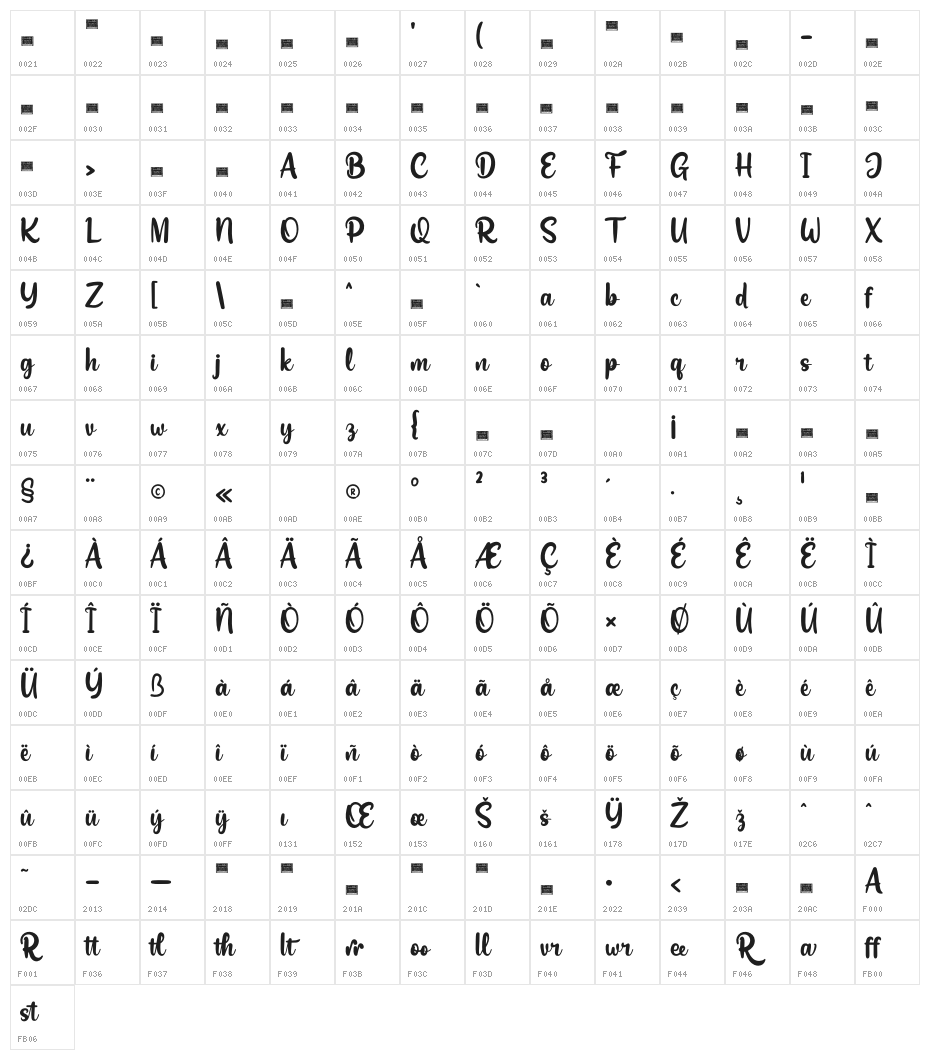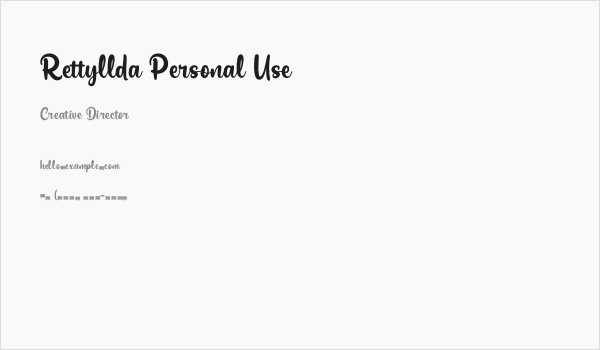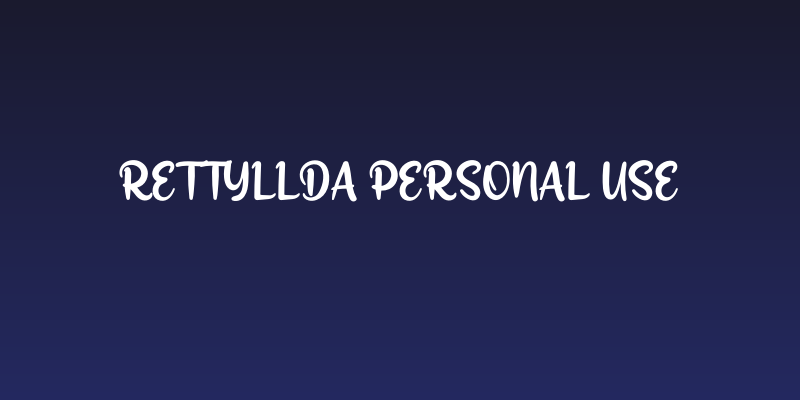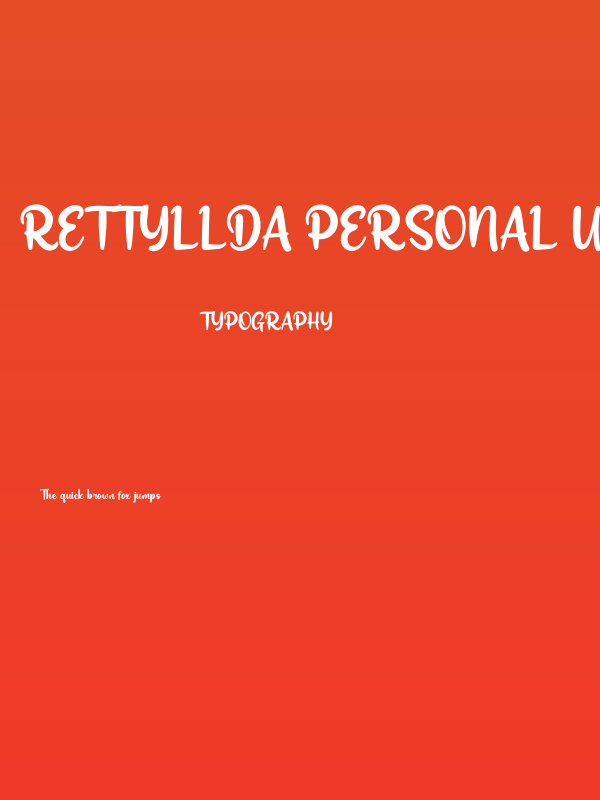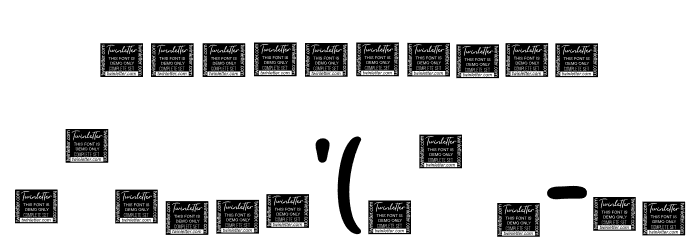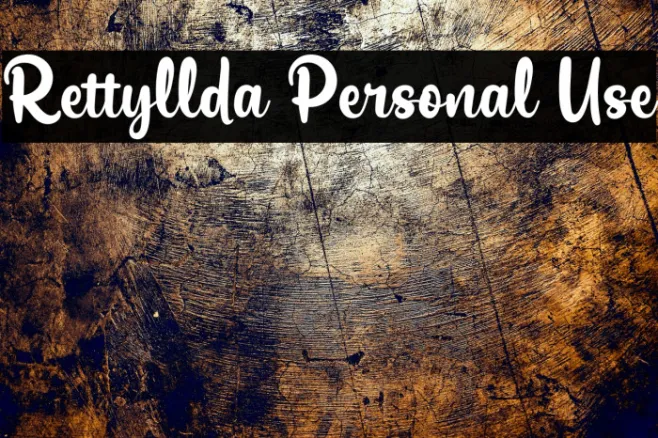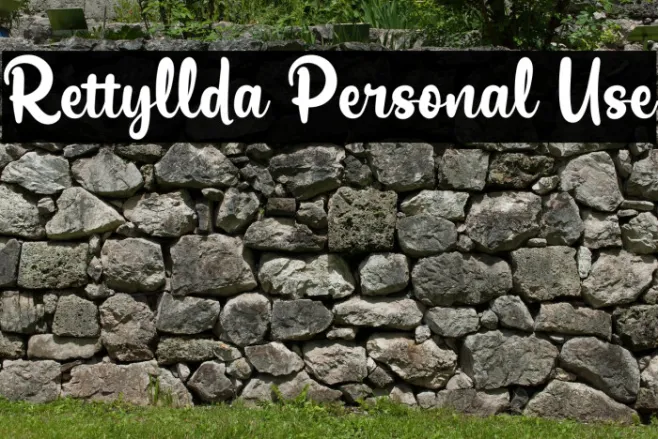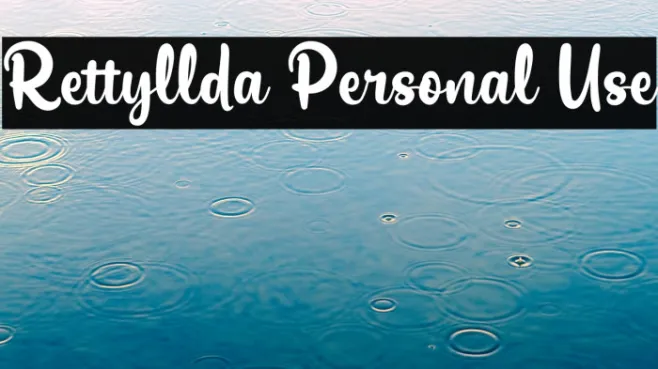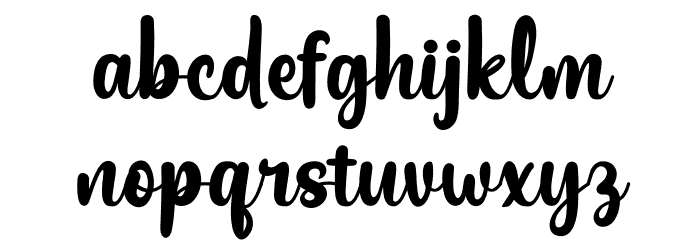
Rettyllda Personal Use Font
Rettyllda Personal Use Description
This font features a playful and bold script style with a handwritten appearance. The uppercase letters are characterized by their flowing, connected strokes, giving a sense of movement and fluidity. The lowercase letters maintain this connected style, enhancing the font's cohesive look. The characters are slightly rounded, adding a friendly and approachable feel. The numbers and special characters are consistent with the overall style, ensuring uniformity across different uses. This font is ideal for projects that require a personal touch, such as invitations, greeting cards, or branding materials.
| Overall Style | Playful, Handwritten |
| Proposed Projects | Ideal for invitations, greeting cards, branding, and personal projects. |